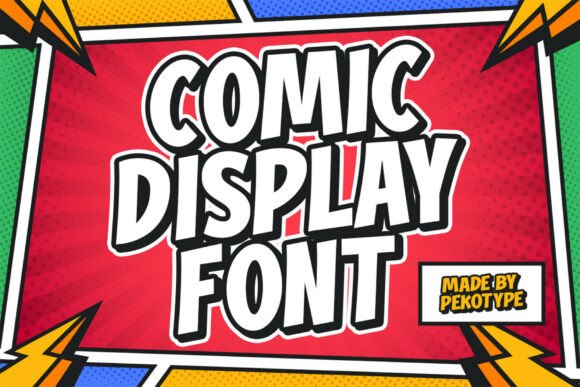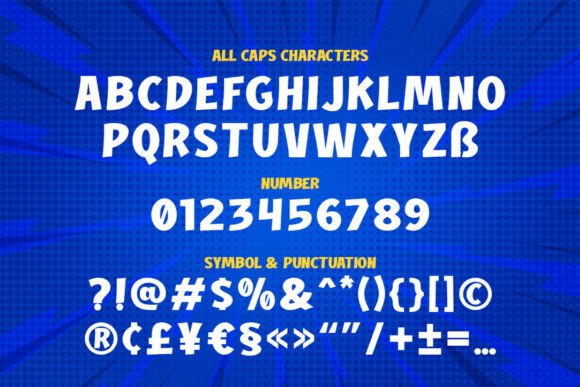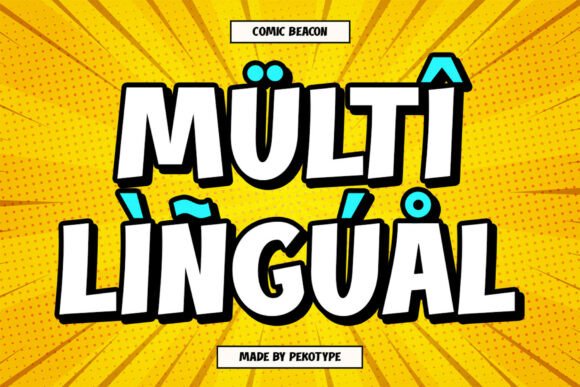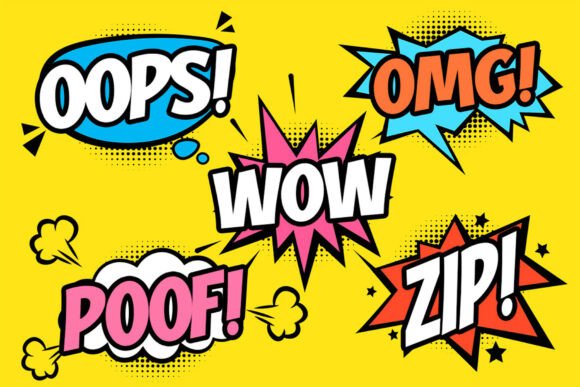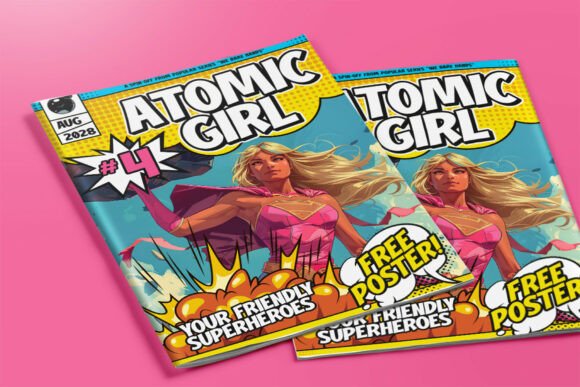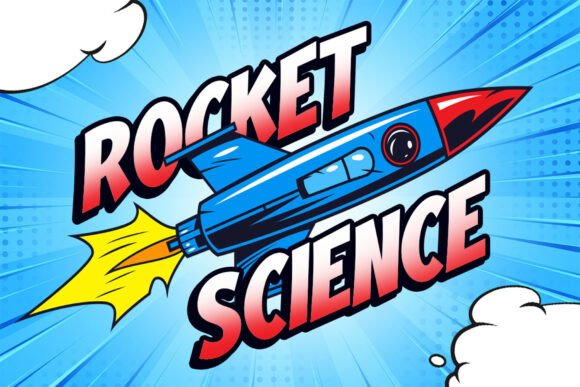
Introducing Comic Beacon: The Bold Comic Font that Lights Up Your Designs
Are you on the hunt for a typeface that injects a dose of personality into your creative projects? Look no further than Comic Beacon, a bold comic font designed to bring a burst of retro charm and playful energy to your designs. With its thick strokes, dynamic curves, and expressive forms, this display font is the perfect choice for making a statement that demands attention.
The Perfect Blend of Retro and Modern
Comic Beacon strikes the ideal balance between nostalgic and modern, making it a versatile font that can be used in a wide range of applications. Whether you’re designing a comic book, creating pop art-inspired visuals, crafting standout logos, or elevating your merchandise, this font brings a unique blend of playfulness and sophistication to the table.
From retro posters to colorful social media graphics, billboards, and more, Comic Beacon is the perfect choice for any design project that requires a bold and eye-catching font. Its thick strokes and dynamic curves make it optimized for readability and impact, ensuring that your message is conveyed loud and clear.
What Makes Comic Beacon Stand Out?
- Bold and Playful: Comic Beacon is designed to make a statement, with bold strokes and playful curves that add a touch of whimsy to your designs.
- Retro Charm: This font is inspired by the classic comic books of the past, but with a modern twist that makes it perfect for contemporary designs.
- Expressive Forms: Comic Beacon’s expressive forms and dynamic curves add a touch of personality to your designs, making them stand out from the crowd.
- Optimized for Readability: Despite its bold and playful nature, Comic Beacon is optimized for readability, ensuring that your message is conveyed clearly and effectively.
Comic Beacon is a font that’s designed to inspire creativity and bring a touch of fun to your designs. Whether you’re a professional designer or a crafter looking for a unique font to add to your projects, Comic Beacon is the perfect choice. Its versatility and playfulness make it ideal for a wide range of applications, from digital designs to print projects.
Tips for Using Comic Beacon
- Use it as a Headline Font: Comic Beacon is perfect for use as a headline font, where its bold and playful nature can really shine.
- Pair it with a Simpler Font: For body text, pair Comic Beacon with a simpler font to create a striking contrast that adds visual interest to your designs.
- Experiment with Colors: Comic Beacon looks great in a wide range of colors, so don’t be afraid to experiment and find the perfect hue to match your brand or design.
Comic Beacon is more than just a font – it’s a visual voice for your most daring ideas. With its bold and playful nature, retro charm, and expressive forms, this font is perfect for designers and crafters looking to add a touch of personality to their projects. So why settle for a boring, generic font when you can make a statement with Comic Beacon?
Whether you’re designing a comic book, creating pop art-inspired visuals, or crafting standout logos, Comic Beacon is the perfect choice. Its versatility, playfulness, and bold aesthetic make it a font that’s sure to capture attention and keep the vibe upbeat. So go ahead, take your designs to the next level with Comic Beacon – the bold comic font that’s sure to light up your creative projects!